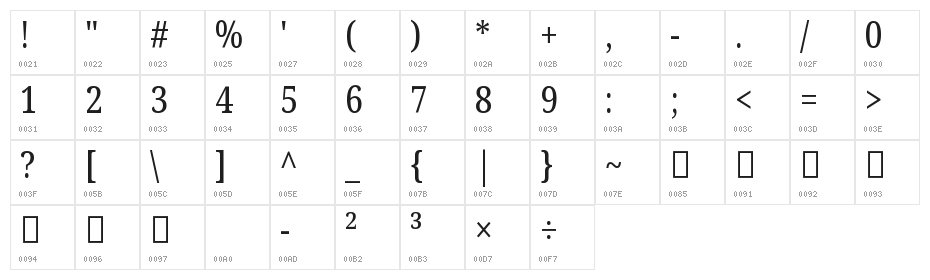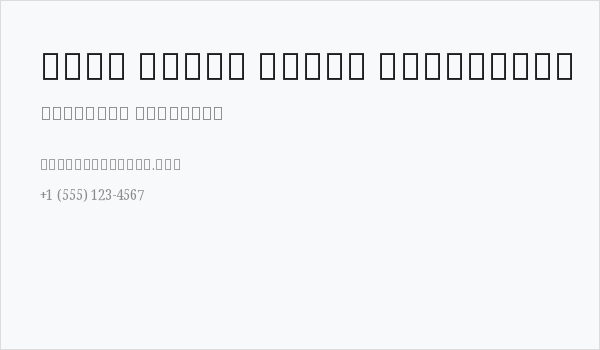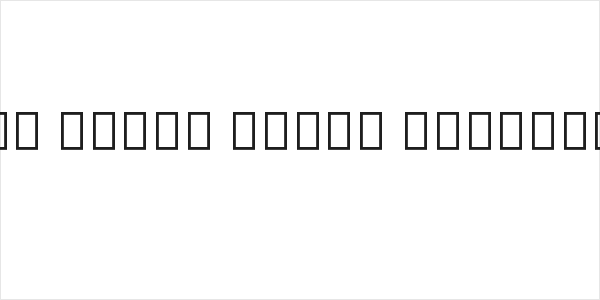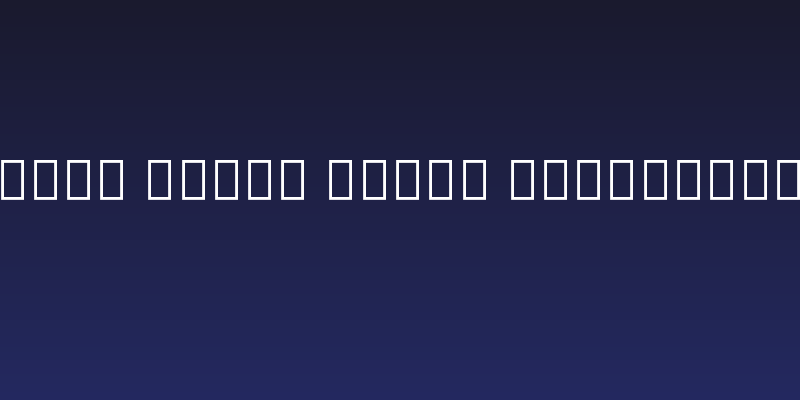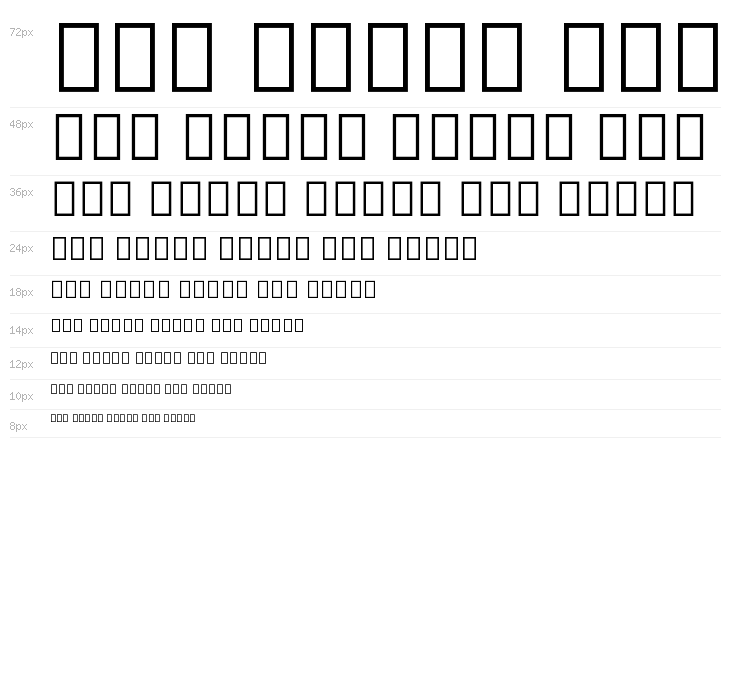
Noto Serif Tamil Condensed Font
Noto Serif Tamil Condensed Description
This font is a serif typeface with a condensed style, offering a classic and elegant appearance. The numerals are well-proportioned and maintain a consistent height, providing a balanced look. The special characters are clear and distinct, ensuring readability across various contexts. The overall design is sophisticated, making it suitable for formal documents and publications. The condensed nature allows for more text to fit in a given space without sacrificing legibility, making it ideal for use in newspapers or magazines where space is at a premium.
| Use Case | Headlines, Body text |
| Proposed Projects | Ideal for newspapers, magazines, formal documents, and any project requiring a classic and space-efficient typeface. |